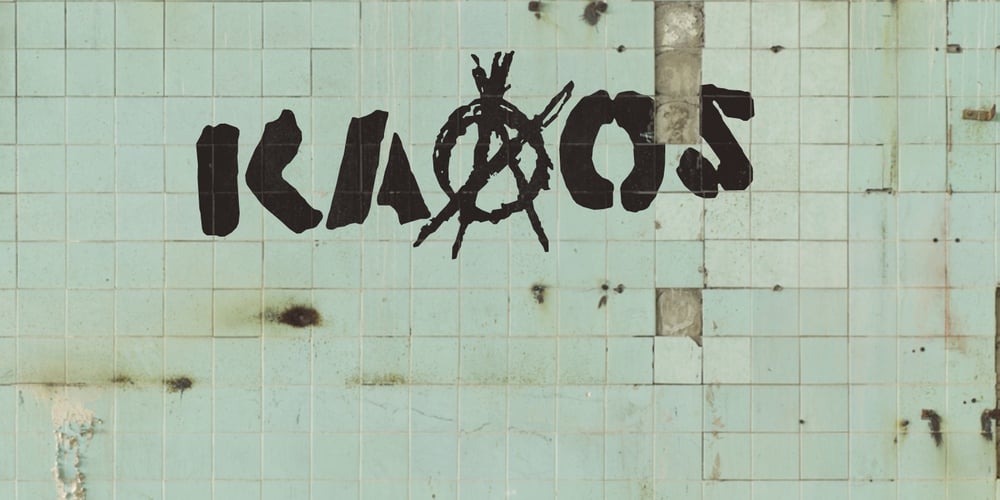
Kaaos Pro
Kaaos Pro font
Kaaos Pro Font Family was designed by Michael Wallner and published by The Type Fetish. Kaaos Pro contains 1 styles and family package options. Kaaos Pro is based on the logo of the Finnish hardcore band of the same name. It was expanded to include extended Latin, extended Cyrillic and Greek alphabets so it will work with most languages in Europe and the Americas.